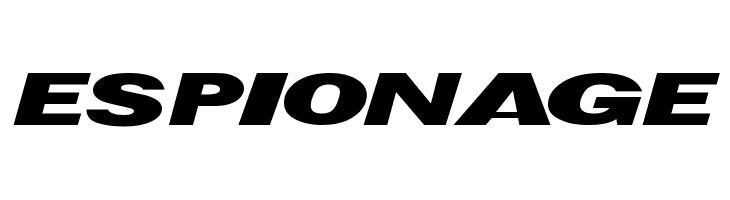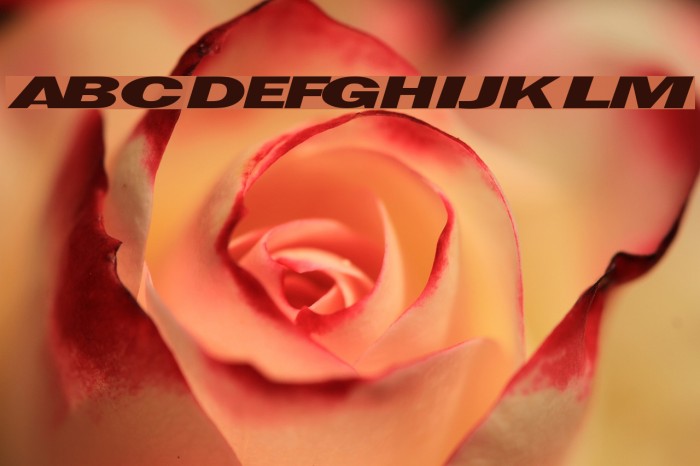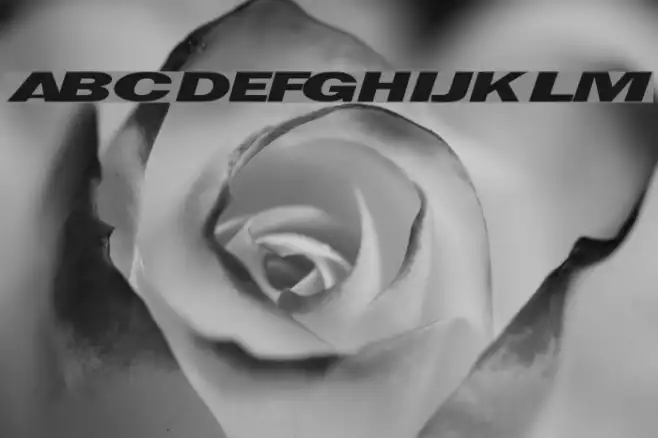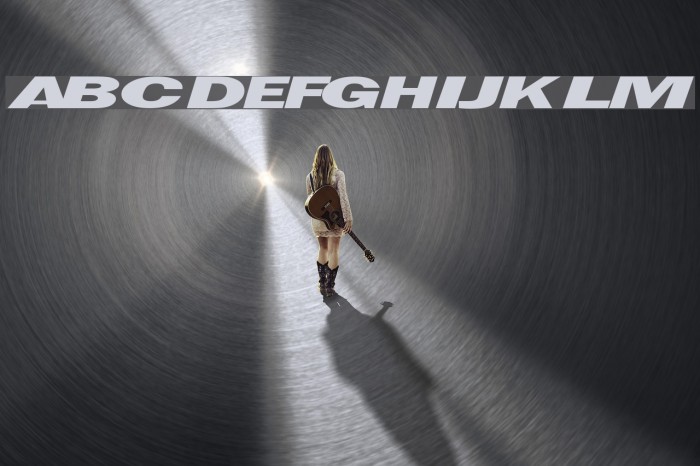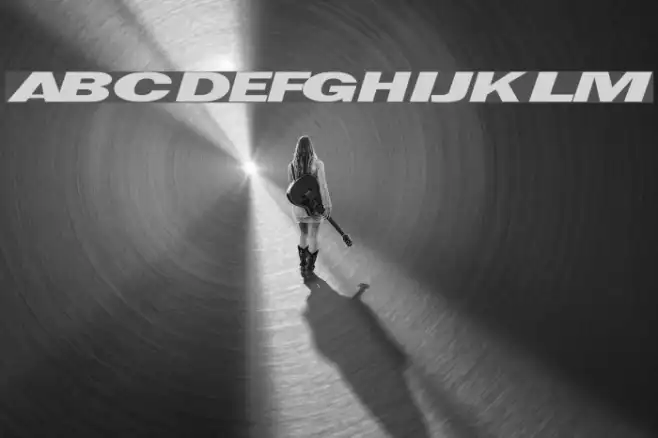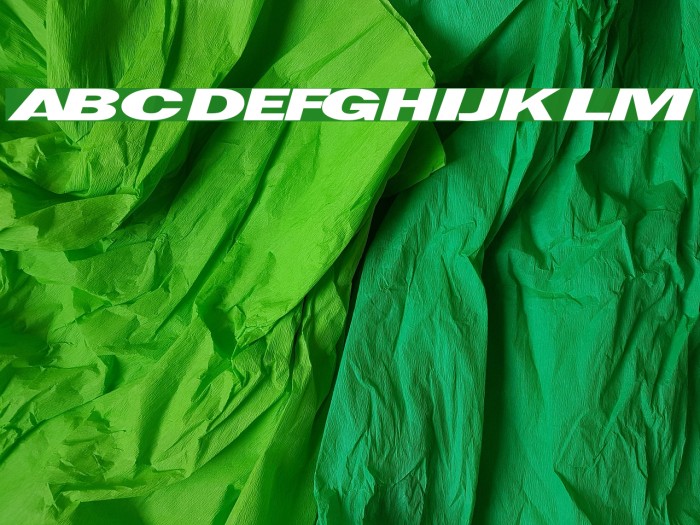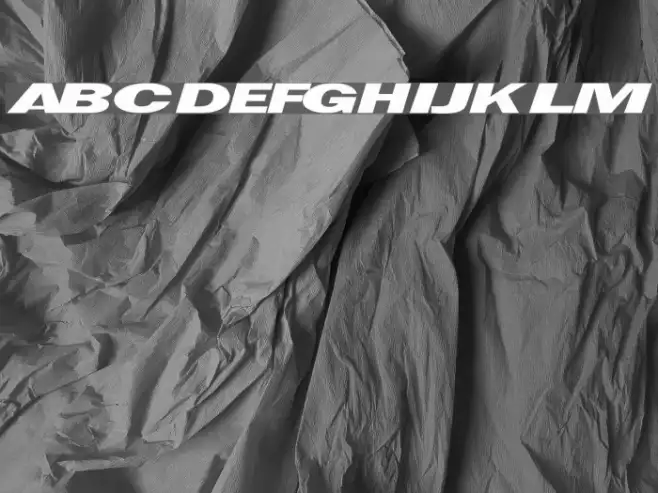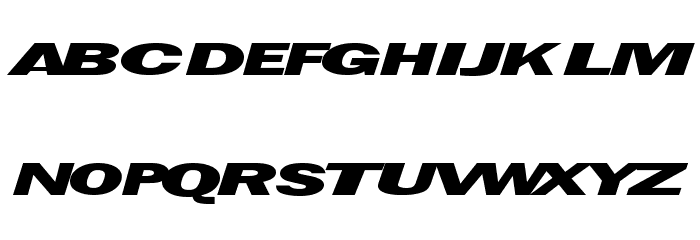
Espionage Font
Espionage Description
This font features a bold and italicized style with a strong, dynamic presence. The letters are slanted, giving a sense of motion and urgency, which is enhanced by the bold weight. The characters are tightly spaced, contributing to a compact and cohesive look. The font's high contrast in stroke thickness adds to its striking appearance, making it ideal for attention-grabbing headlines or impactful logos. Its modern and sleek design suggests a sense of sophistication and professionalism, suitable for projects that require a contemporary and assertive typeface.